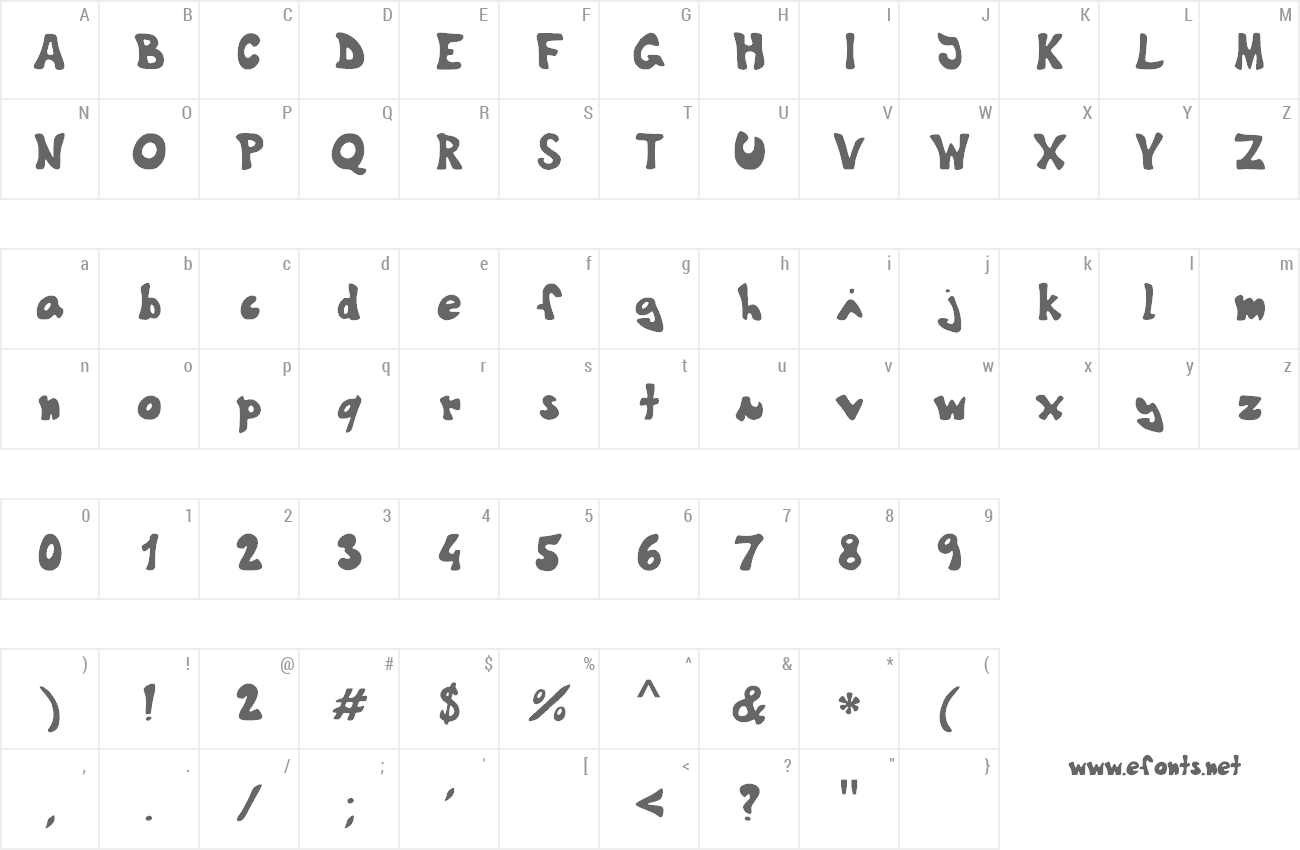
| Font name: | The Shy Family |
| Author: | AngiShy |
| Note by AngiShy | |
Font is created by Sabrina Jozová aka Angi Shy The font will be used in the future for my comic and cartoon show called The Shy family. There are two versions of the font... The normal one and the outlined one. The font is copyrighted by me, you're allowed to use it for personal purposes, it means you're NOT allowed to use this font for any paid stuff. |